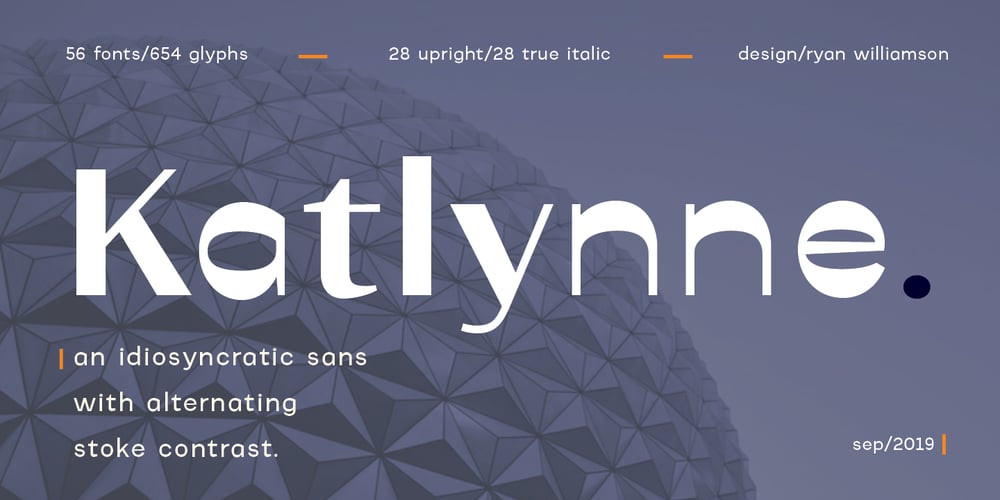
Katlynne Font Family was designed by Ryan Williamson and published by Ryan Williamson. Katlynne contains 56 styles and family package options. Katlynne is unpredictable. Katlynne is erratic. Katlynne is beautiful. Katlynne is an alternating contrast, sans serif type family. Arbitrarily separating the characters into ‘rounder’ and ‘straighter’ letterforms to determine what contrast each glyph will take. Katlynne is inspired by the observations made while watching the inexperienced use of broad tip pens. I found how and when individuals rotated their pen gave a visually intrusive, if not also pleasantly conspicuous effect. Often, the pen would naturally rotate horizontally (vertical contrast) on the rounder letterforms, and vertically (reverse contrast) on the straighter ones. This is more or less the formula Katlynne adopts as the contrast changes throughout the styles. Katlynne’s severity of contrast varies from ‘Negative Three’ to ‘Positive Three’ in four weights. With a central style ‘Book’ being the sensible, low contrast font in the family. Within the family there are four weights with 7 contrast styles, with complimenting true italics. Giving a total of 56 fonts! Katlynne’s array of options works for creating stylistic similitude within layouts, where conspicuous title faces are needed with a cohesive text face to compliment. Alone, the ends of the contrast spectrum (Negative and Positive Three) create striking word forms for advertising, packaging and anywhere else a loud voice is needed.